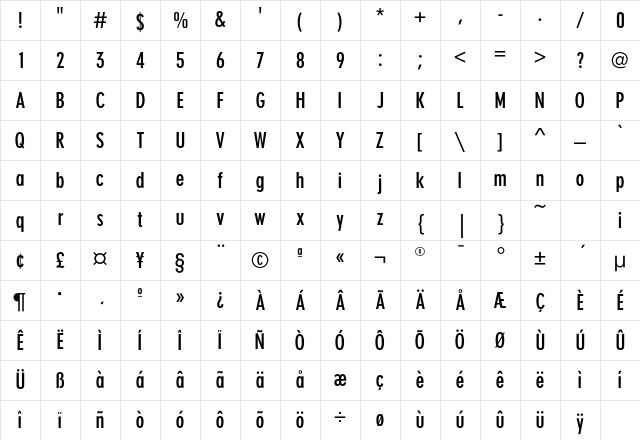
DigiGroteskNEF-SemiBoldCond Regular
Complete DigiGroteskNEF-SemiBoldCond Regular glyph index. Displaying only characters natively supported by DigiGroteskNEF-SemiBoldCond Regular font.
Design Context for DigiGroteskNEF-SemiBoldCond
DigiGroteskNEF-SemiBoldCond takes a clean, functional approach - its unadorned letterforms prioritise legibility and work reliably across screen and print environments. Its bold stroke weight gives it real presence on the page. Its narrow stance lets it pack a punch even in space-constrained designs.
Font Pairing: Works well alongside a characterful serif or display font that can carry the expressive load while DigiGroteskNEF-SemiBoldCond handles the functional copy.
Pro Tip: Use DigiGroteskNEF-SemiBoldCond tightly set in headlines and banners - its condensed proportions make it ideal for maximum impact in minimum horizontal space.